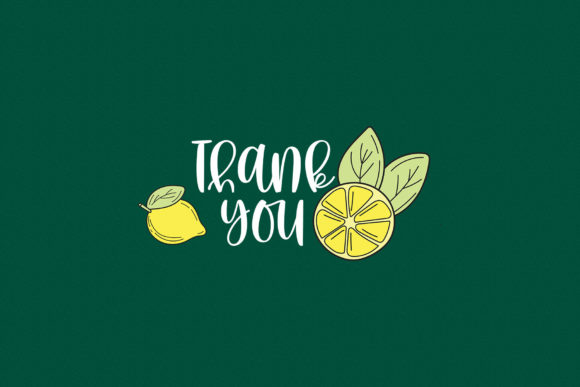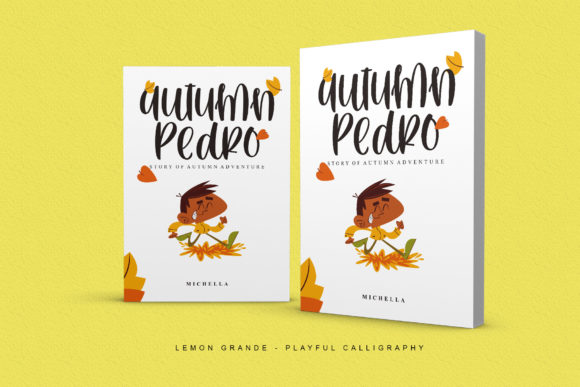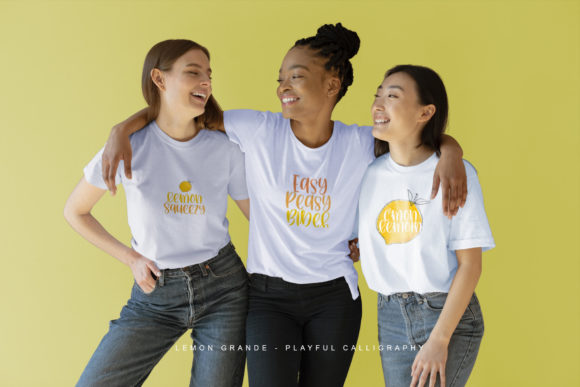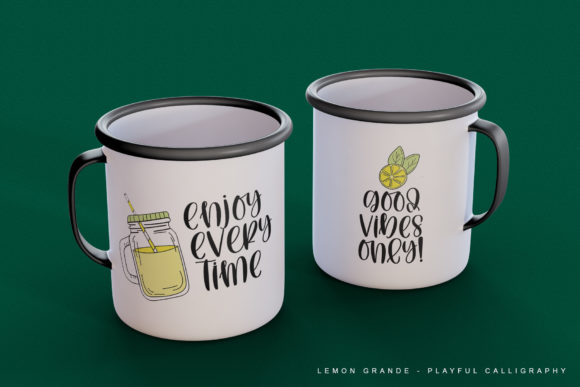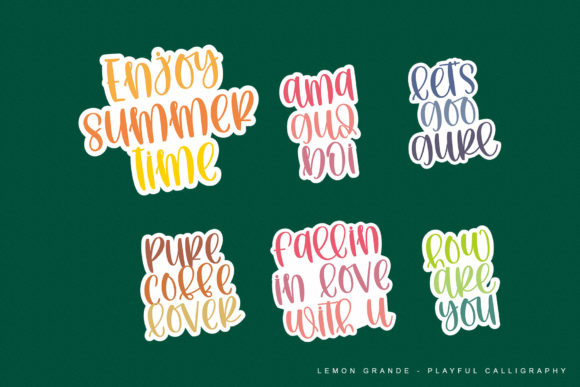
About Lemon Grande Font
Lemon Grande is a cute, cheery, and playful calligraphy font. It is suitable for an incredible set of projects, so add it to your creative ideas and notice how it makes them stand out!